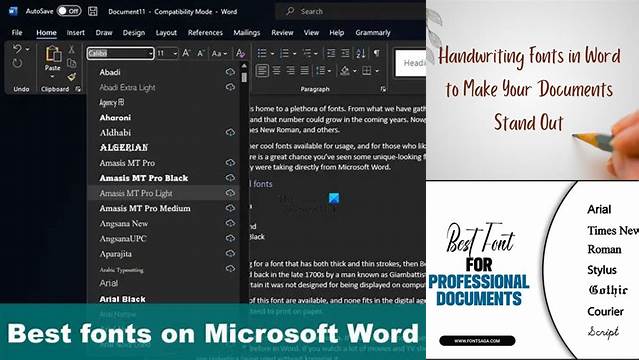
Top Theme Fonts In Word: Make Your Documents Shine
Choosing the right fonts for your Word documents can dramatically improve their readability and visual appeal. Best theme fonts in Word are designed to work harmoniously together, providing a consistent and professional look. Guys, let's dive into some of the top font pairings and explore how you can use them to create stunning documents.
1. Understanding Theme Fonts in Word
Understanding best theme fonts in Word is crucial for creating professional and visually appealing documents. Theme fonts are font pairs that are designed to work together harmoniously, typically consisting of a heading font and a body font. When you apply a theme to your document, Word automatically updates the fonts used for headings and body text, ensuring a consistent look throughout. Theme fonts make it easy to change the overall style of your document without having to manually adjust each font. For example, you might choose a theme with a classic serif font for the body text and a clean sans-serif font for headings, or vice versa. By leveraging theme fonts, you can maintain a cohesive design and save time in the formatting process. Think of theme fonts as a dynamic duo, ensuring your document looks polished and professional with minimal effort. Choosing the right theme fonts can significantly enhance the readability and visual impact of your work, making it easier for your audience to engage with your content. So, next time you're working on a document, take advantage of Word's theme font options to elevate your design.
2. Why Font Choice Matters
The fonts you choose in your Word documents are more than just aesthetic; they play a critical role in how your content is perceived. Best theme fonts in Word can influence readability, tone, and overall professionalism. For instance, a clean and modern font can convey a sense of efficiency and clarity, while a more traditional serif font might lend a formal and authoritative feel. Choosing the wrong font can make your document look unprofessional or even difficult to read, potentially detracting from your message. Imagine reading a lengthy report in a script font – it would be exhausting! Font choice affects the reader's ability to quickly grasp information and can even impact their emotional response to the content. A well-chosen font enhances readability and helps maintain the reader's interest, while a poorly chosen font can lead to eye strain and frustration. So, taking the time to select the right fonts for your document is an investment in effective communication. Think of your font choices as the clothes your words wear – they should fit the occasion and make a positive impression. By carefully considering your audience and the purpose of your document, you can choose fonts that not only look good but also enhance the message you're trying to convey. Ultimately, the right font choice ensures your document is both visually appealing and highly readable.
3. Pairing Fonts Like a Pro
Pairing best theme fonts in Word like a pro involves understanding the subtle art of visual harmony. The goal is to select fonts that complement each other, creating a balanced and appealing look for your document. A common approach is to pair a serif font (with small decorative strokes at the ends of the letters) with a sans-serif font (without those strokes). This combination offers a visual contrast that can make your headings stand out while ensuring the body text remains easy to read. For example, pairing Times New Roman (serif) with Arial (sans-serif) is a classic choice that provides a professional and readable result. Another strategy is to use different weights or styles of the same font family, such as pairing a bold heading with regular body text. This creates a cohesive look without sacrificing visual interest. Font pairing is all about balance and contrast. You want to avoid fonts that are too similar, as this can make your document look monotonous, or fonts that clash, which can be jarring to the reader. Experimenting with different combinations is key to finding what works best for your specific document. Consider the tone and purpose of your content when making your font selections. A formal document might benefit from a more traditional pairing, while a creative project could call for more adventurous choices. By mastering the art of font pairing, you can elevate the visual impact of your documents and ensure they communicate effectively.
4. Classic Font Combinations
When it comes to best theme fonts in Word, some classic combinations have stood the test of time due to their readability and professional appearance. These pairings are reliable choices for a wide range of documents, from business reports to academic papers. One of the most popular classic combinations is Times New Roman for body text and Arial for headings. Times New Roman is a serif font known for its traditional and formal look, while Arial is a clean and modern sans-serif font. This pairing provides a clear visual hierarchy, making it easy for readers to navigate the document. Another go-to combination is Garamond (serif) paired with Helvetica (sans-serif). Garamond offers a touch of elegance and readability, while Helvetica provides a clean and minimalist feel. This combination is particularly effective for documents that require a balance of sophistication and clarity. A third classic pairing is Georgia (serif) with Verdana (sans-serif). Both fonts were designed for on-screen readability, making them excellent choices for digital documents. Georgia has a slightly wider appearance than Times New Roman, which enhances its legibility, while Verdana is known for its tall x-height, further improving readability. These classic font combinations are versatile and can be used in various contexts. They provide a safe and professional option when you want to ensure your document looks polished and is easy to read. By sticking with these tried-and-true pairings, you can create documents that are both visually appealing and highly effective.
5. Modern Font Pairings
For a contemporary and stylish look in your documents, exploring modern font pairings within best theme fonts in Word is a great approach. Modern fonts often feature clean lines and a minimalist aesthetic, making them well-suited for professional and creative projects alike. One popular modern pairing is Montserrat (sans-serif) for headings and Open Sans (sans-serif) for body text. Both fonts are highly readable and have a clean, contemporary feel. Montserrat works particularly well for headings due to its bold and geometric design, while Open Sans is excellent for body text because of its clarity and simplicity. Another excellent modern combination is Roboto (sans-serif) for both headings and body text, using different weights to create contrast. Roboto is a versatile font family with a friendly yet professional appearance, making it a solid choice for a wide range of documents. Using different weights, such as Roboto Bold for headings and Roboto Regular for body text, provides a subtle visual distinction while maintaining a cohesive look. A third standout modern pairing is Lato (sans-serif) for body text and Raleway (sans-serif) for headings. Lato is known for its semi-rounded details, which give it a warm and approachable feel, while Raleway is a more elegant and slightly condensed sans-serif. This combination is ideal for documents that need to convey a sense of sophistication and modernity. Experimenting with modern font pairings can help you create documents that stand out and make a lasting impression. These pairings often bring a fresh and updated look to your content, making it more engaging and visually appealing.
6. Serif vs. Sans-Serif: Which to Choose?
Understanding the difference between serif and sans-serif fonts is crucial when selecting best theme fonts in Word for your documents. Serif fonts have small decorative strokes (serifs) at the ends of the letters, while sans-serif fonts do not. Each type of font has its own unique characteristics and is better suited for different purposes. Serif fonts, such as Times New Roman, Garamond, and Georgia, are often considered more traditional and formal. They are typically used for body text in printed documents because the serifs help guide the eye across the page, making long passages easier to read. Serif fonts can convey a sense of authority, elegance, and reliability. On the other hand, sans-serif fonts, such as Arial, Helvetica, and Verdana, have a cleaner and more modern look. They are commonly used for headings, titles, and digital content because of their clarity and legibility on screens. Sans-serif fonts often give a more approachable and contemporary feel. The choice between serif and sans-serif fonts depends on the context and purpose of your document. For formal documents or those with large blocks of text, a serif font for the body and a sans-serif font for headings is a classic and effective combination. For more modern or digital-focused content, you might choose to use sans-serif fonts for both headings and body text. Ultimately, the best approach is to consider your audience, the tone of your message, and the readability of the fonts in different contexts. By understanding the strengths of both serif and sans-serif fonts, you can make informed decisions that enhance the visual appeal and effectiveness of your documents.
7. The Psychology of Fonts
Fonts, often overlooked, play a significant role in conveying the tone and message of your content. The best theme fonts in Word not only enhance readability but also evoke specific emotions and perceptions in the reader. This is because different fonts have different visual characteristics that trigger psychological associations. For example, serif fonts like Times New Roman and Garamond are often associated with tradition, authority, and formality. They evoke a sense of trustworthiness and reliability, making them suitable for academic papers, legal documents, and business reports. On the other hand, sans-serif fonts such as Arial and Helvetica are perceived as modern, clean, and efficient. They convey a sense of clarity and simplicity, making them ideal for websites, presentations, and contemporary business communications. Fonts can also influence the reader's perception of your personality and professionalism. A playful or whimsical font might be appropriate for a children's book or a creative project, but it would likely be out of place in a formal business proposal. Similarly, an overly decorative or difficult-to-read font can make your document appear unprofessional and detract from your message. The psychology of fonts extends to color and spacing as well. Darker, heavier fonts tend to convey seriousness and strength, while lighter fonts can evoke a sense of lightness and elegance. Proper spacing and kerning (the space between individual letters) are essential for readability and can influence how the font is perceived. By understanding the psychological impact of fonts, you can make deliberate choices that align with your message and target audience. Selecting the right font is about more than just aesthetics; it's about effectively communicating your intended tone and creating the desired impression.
8. Best Fonts for Headings
Choosing the best theme fonts in Word for headings is crucial because headings serve as visual cues that guide readers through your document. Headings need to be clear, attention-grabbing, and easy to read. Sans-serif fonts are often a popular choice for headings due to their clean and modern look, but bold serif fonts can also be effective. One excellent option for headings is Montserrat, a geometric sans-serif font that is both stylish and highly legible. Its bold and assertive appearance makes it ideal for creating impactful headings that stand out. Another top choice is Raleway, a more elegant and slightly condensed sans-serif font that exudes sophistication. Raleway is perfect for headings in documents that require a touch of refinement and modernity. For a classic look, consider using a bold serif font like Playfair Display. This font has a strong and distinctive presence, making it an excellent choice for headings in more formal documents. Its elegant serifs add a touch of traditional charm while maintaining readability. When selecting a font for headings, it's important to consider the overall tone and style of your document. The heading font should complement the body text font and create a cohesive visual hierarchy. A good rule of thumb is to use a font that is visually distinct from the body text but still harmonizes with it. Experimenting with different font weights and sizes can also help you create headings that effectively guide the reader through your content. Ultimately, the best fonts for headings are those that enhance readability and draw attention to key sections of your document.
9. Top Fonts for Body Text
Selecting the right fonts for the body text is crucial for ensuring readability and maintaining the reader's engagement. The best theme fonts in Word for body text are typically those that are easy on the eyes and allow for comfortable reading over extended periods. Serif fonts are often preferred for body text due to their small decorative strokes (serifs) that help guide the eye across the page. One of the most popular choices for body text is Times New Roman, a classic serif font known for its readability and formal appearance. Times New Roman is a reliable option for a wide range of documents, from academic papers to business reports. Another excellent serif font for body text is Garamond. Garamond has a more elegant and refined look compared to Times New Roman, making it a great choice for documents that require a touch of sophistication. Its classic design ensures readability while adding a subtle stylistic flair. For a more modern look, consider using a sans-serif font like Open Sans for body text. Open Sans is a highly readable sans-serif font with a clean and minimalist design. It is particularly well-suited for digital documents and websites, as it maintains its clarity even at smaller sizes. Another great sans-serif option is Lato, which has a friendly and approachable feel due to its semi-rounded details. When choosing a font for body text, prioritize readability and consider the overall tone of your document. The font should be easy to read in large blocks of text and complement the headings and other design elements. By selecting the right body text font, you can create documents that are both visually appealing and highly readable.
17. Kerning and Tracking Adjustments
Kerning and tracking are subtle typographic adjustments that can significantly enhance the visual appeal and readability of your documents. When working with the best theme fonts in Word, understanding and utilizing these adjustments can take your typography to the next level. Kerning refers to the adjustment of space between individual letters to create a more balanced and visually pleasing appearance. Some letter combinations, like